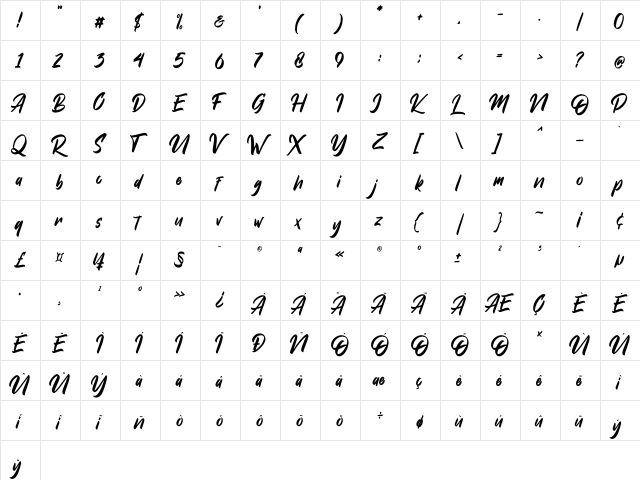
Dakwart Letter Regular Font Preview
Dakwart Letter Regular
Dakwart Letter Regular Font Details
| Foundry | Persis Dakwart |
| Designer | Persis Dakwart Studio |
Design Context for Dakwart Letter Typeface
Dakwart Letter is a composed and adaptable typeface that performs quietly and consistently across a wide range of design contexts.